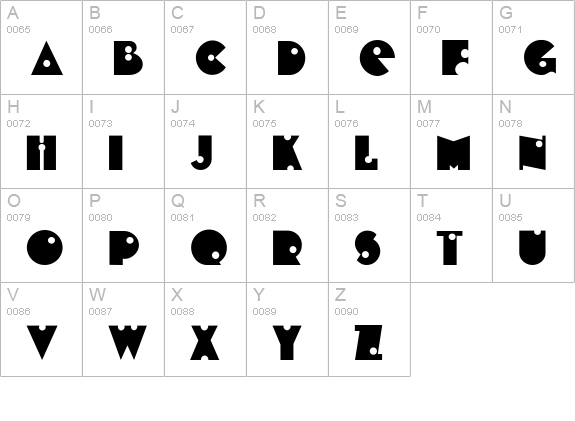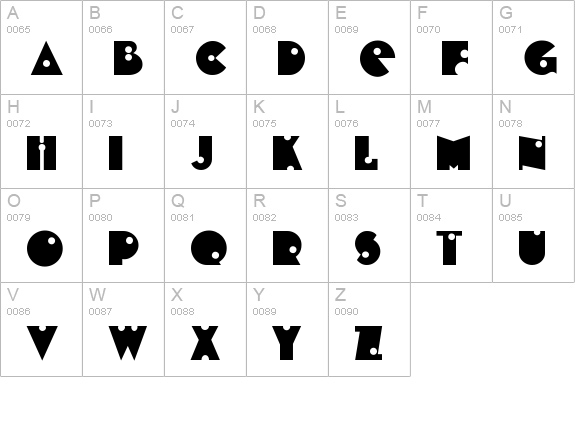
Cheap Shot Display Caps SSi Font Details
Cheap Shot Display Caps SSi is a bold and eye-catching font that is sure to make a statement in any design project. With its sharp edges and modern aesthetic, this font is perfect for headlines, logos, and other display purposes. The unique character shapes and tight spacing give it a strong and impactful presence on the page. What's even better is that Cheap Shot Display Caps SSi is available for free download at FontsMarket.com. This means you can easily access and use this stylish font in your projects without any cost. Whether you're designing a poster, website, or branding materials, Cheap Shot Display Caps SSi is a versatile and dynamic font choice that will help your content stand out. Download it today and add a touch of boldness to your designs!